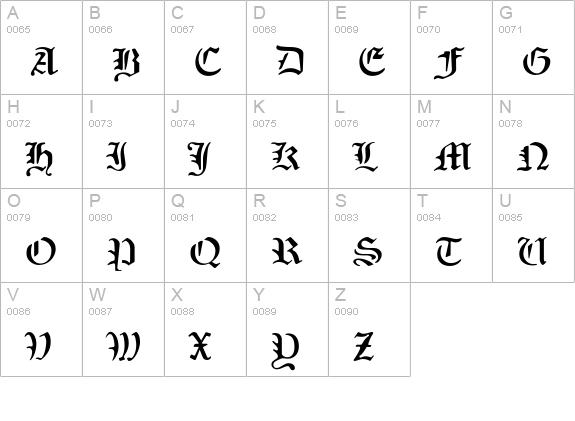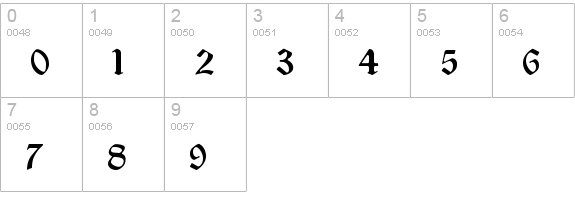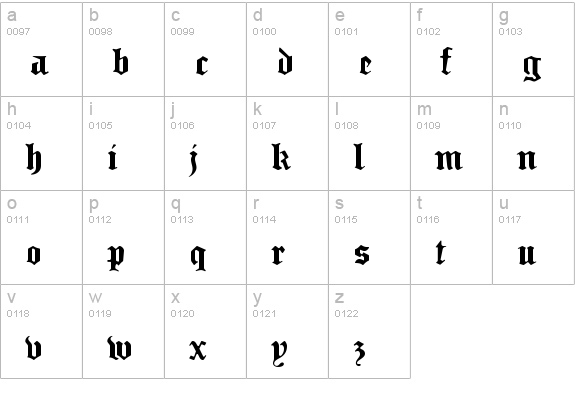
SabbathBlackHeavy Font Details
SabbathBlackHeavy font is a powerful and bold typeface that exudes a sense of strength and intensity. With its thick, heavy strokes and solid, block-like structure, this font commands attention and makes a lasting impression. Designed to be both modern and timeless, SabbathBlackHeavy font is perfect for capturing the essence of strong and impactful designs. Whether you are creating a logo, a headline, a poster, or any other design project that requires a bold statement, this font will not disappoint. What sets SabbathBlackHeavy font apart is its versatility. While it is undoubtedly perfect for heavy metal and rock-themed designs, it can also be used in a variety of other contexts where a strong and dominant presence is desired. Its clean and well-defined letterforms ensure legibility, even at smaller sizes. And the best part? SabbathBlackHeavy font is available for free download at FontsMarket.com. With just a few clicks, you can add this striking font to your collection and start using it in your own designs. So why wait? Download SabbathBlackHeavy font today and unleash the power of bold typography in your creative projects.